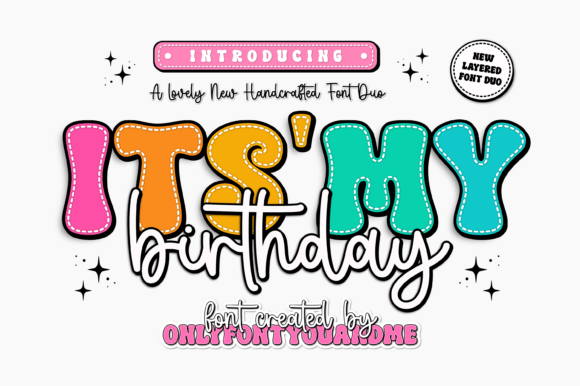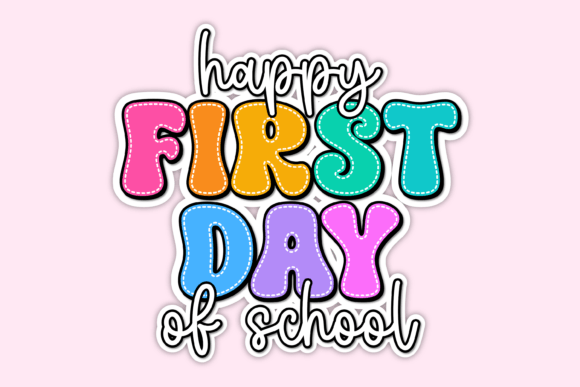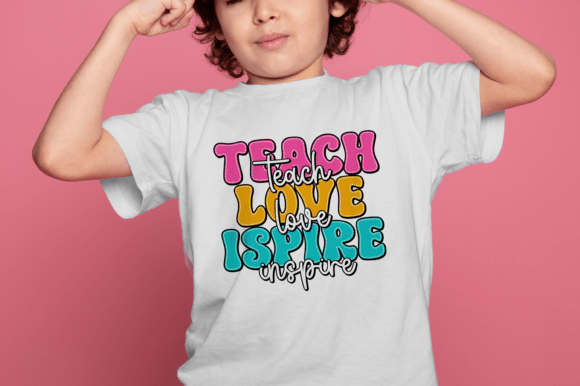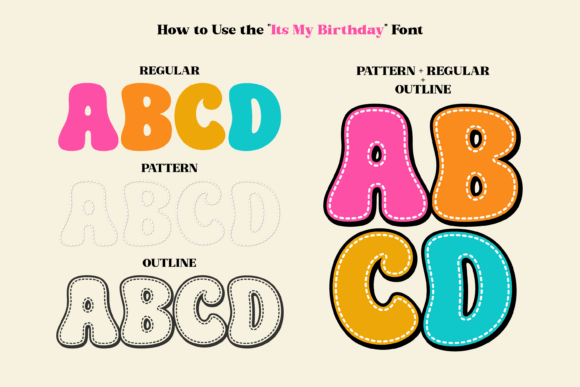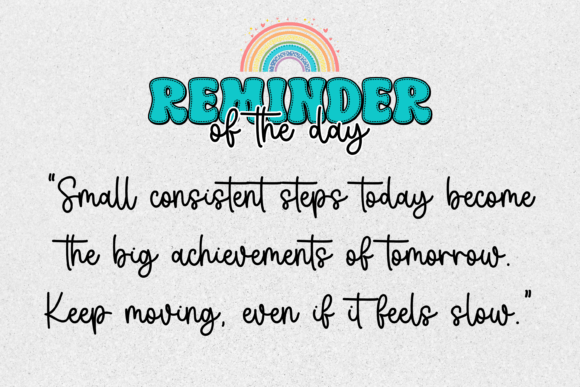
Birthdays, Parties, and the Perfect Font
It’s that time of the year again – a friend’s birthday, a family gathering, or a child’s first party. You’re rummaging through your design stash, searching for the perfect font to match the excitement and joy of the occasion. As you scroll through your font library, one name catches your eye: Its My Birthday Font. This dynamic duo is more than just a font – it’s a party in a package, waiting to be unleashed on your next design project.
The Its My Birthday Font is a clever combination of two distinct styles: a bold, layered display font and a smooth, handwritten script font. Together, they create a visually stunning effect that’s sure to make your designs stand out. Whether you’re creating party invitations, greeting cards, or children’s designs, this font duo is the perfect addition to your toolkit, offering endless possibilities for creativity and self-expression.
Key Features of “It’s My Birthday Font”
- Font Family: It’s My Birthday, a fun and playful script font.
- Unique Characteristics: Features swashes, flourishes, and connecting strokes, giving it a handwritten feel and making it perfect for birthday invitations, party decorations, and other celebratory designs.
Design Review: “It’s My Birthday Font”
As a designer, I was excited to dive into “It’s My Birthday Font” and see what it had to offer. ✨ The font’s playful, cursive script is perfect for adding a celebratory touch to any design project. It’s sure to grab the attention of anyone celebrating a birthday or special occasion.
- Unique, custom design: The font’s unique design makes it stand out from more traditional fonts.
- Perfect for celebrations: The playful, cursive script is ideal for birthday invitations, party decorations, and other celebration-related designs.
- Easy to read: Despite its playful design, the font is still easy to read and understand.
However, there are some limitations to consider: ⚠️ The font may not be suitable for formal or professional designs, as its playful nature may not be taken seriously. Additionally, the font may not be compatible with all font formats or software.
Overall, I would give “It’s My Birthday Font” 4 out of 5 stars. It’s a fun, unique font that’s perfect for adding a celebratory touch to any design project. However, its limitations may make it less suitable for more formal or professional designs.
To get the most out of “It’s My Birthday Font”, try combining it with bold or italic text to create a fun and playful effect.
You can also use it in conjunction with other design elements, such as balloons or confetti, to create a festive atmosphere.
“It’s My Birthday Font” is commonly used for:
- Birthday invitations and cards
- Party decorations and signage
- Personalized gifts and mementos